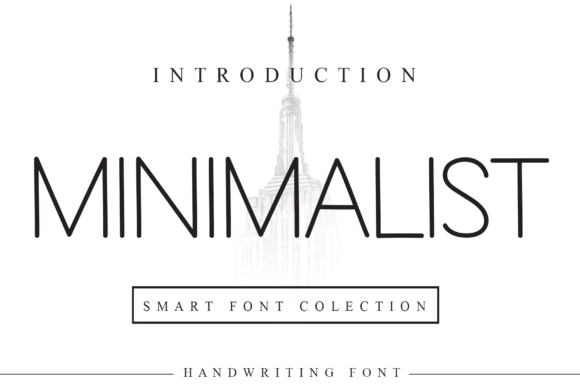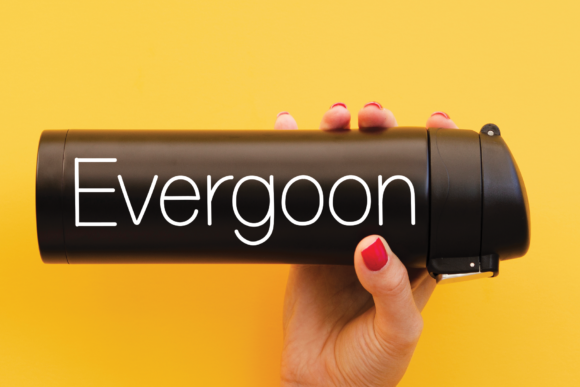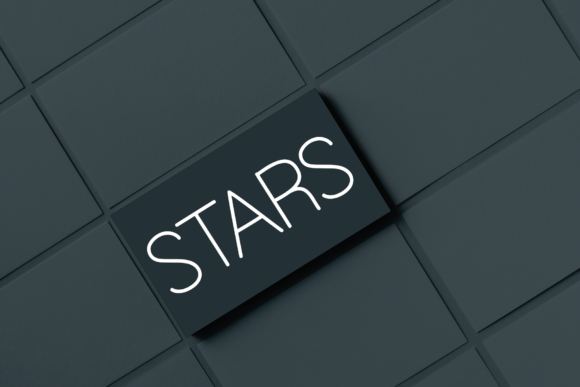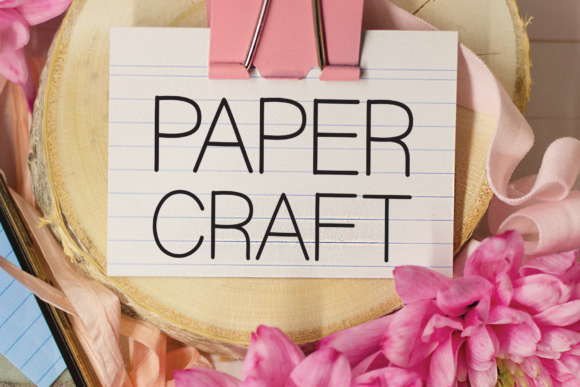
Minimalist is a clean and modern sans serif font designed for versatility. Its sleek, simple lines make it the perfect match for a wide range of creative projects—just add it to your designs and watch them come to life with a sophisticated edge.